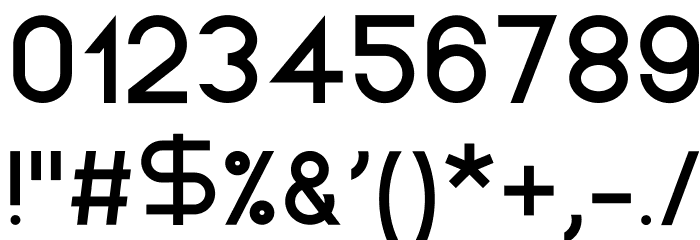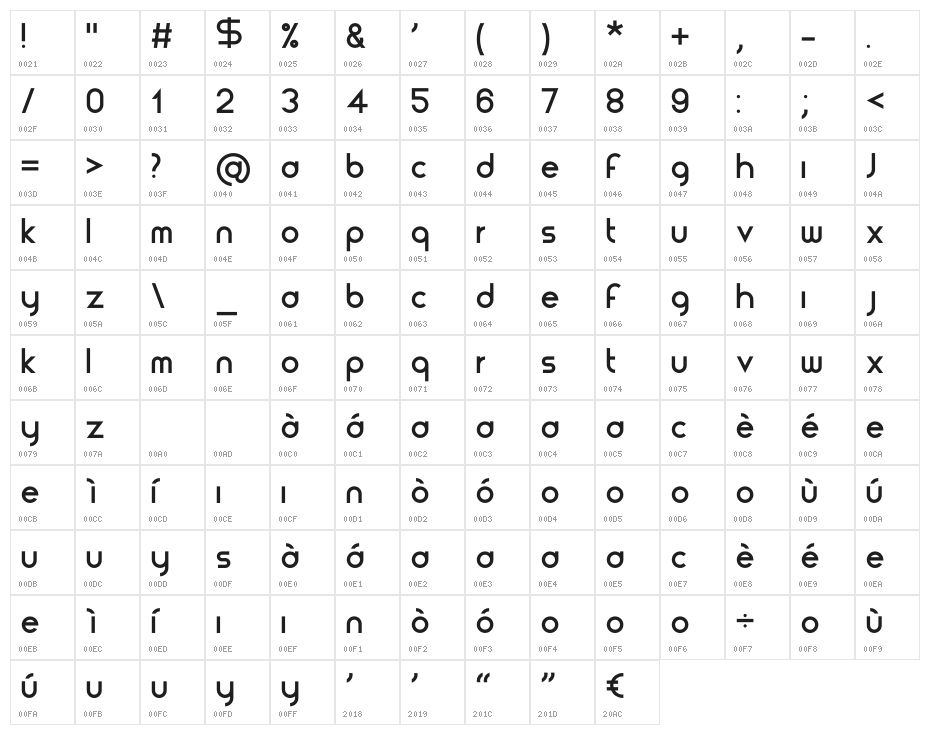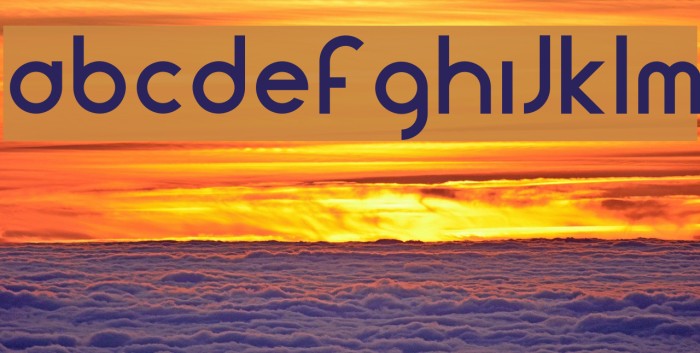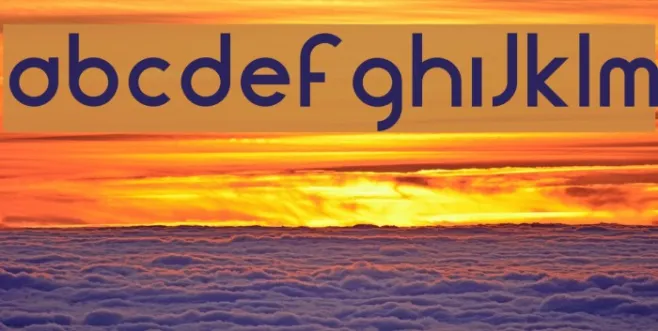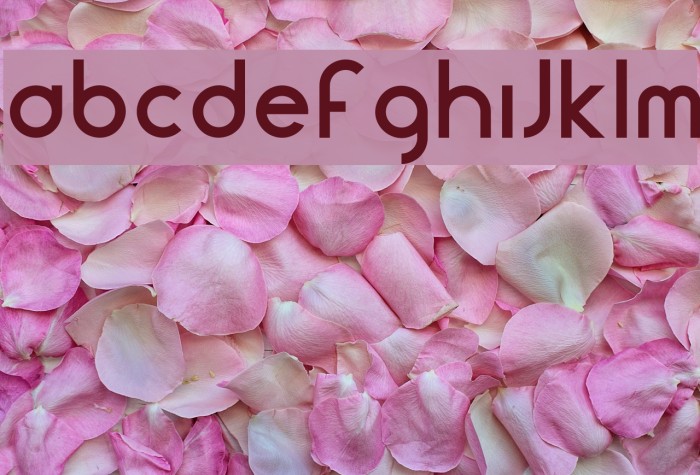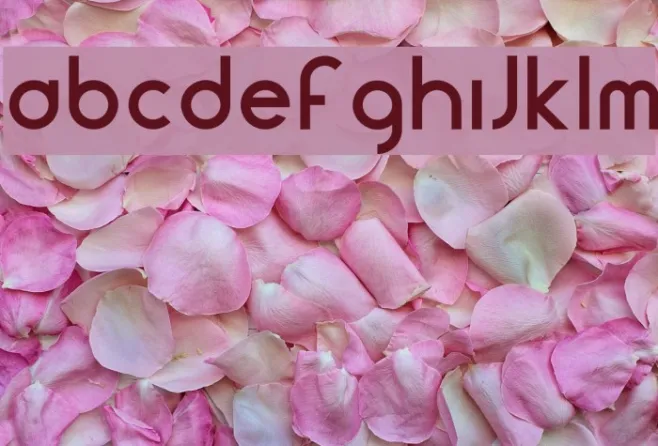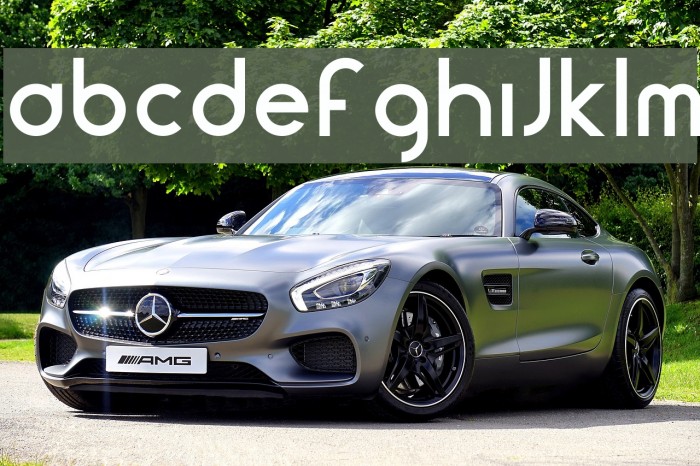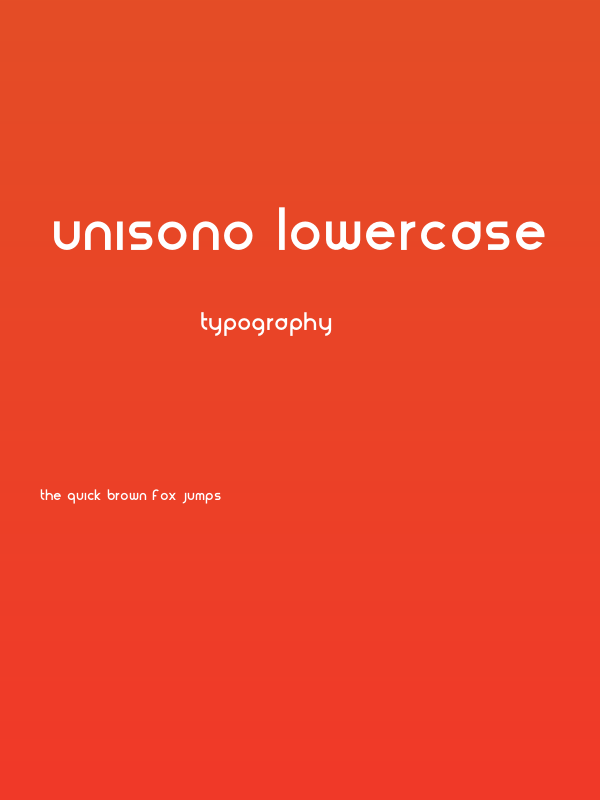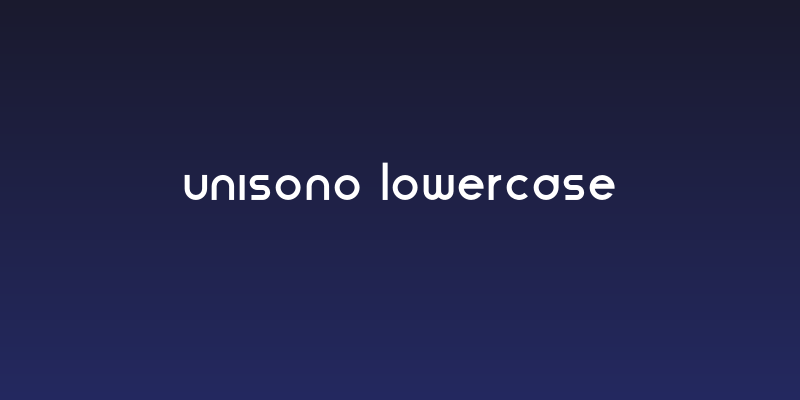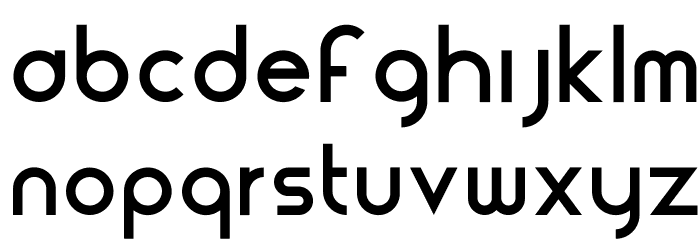
Unisono Lowercase Font
Unisono Lowercase Description
This font features a modern and clean design with a geometric sans-serif style. The characters are well-balanced with a consistent stroke width, giving it a uniform appearance. The rounded edges and open counters contribute to its friendly and approachable look. The numerals and special characters maintain the same geometric aesthetic, ensuring cohesion across all elements. This font is versatile, suitable for various applications due to its readability and contemporary feel.